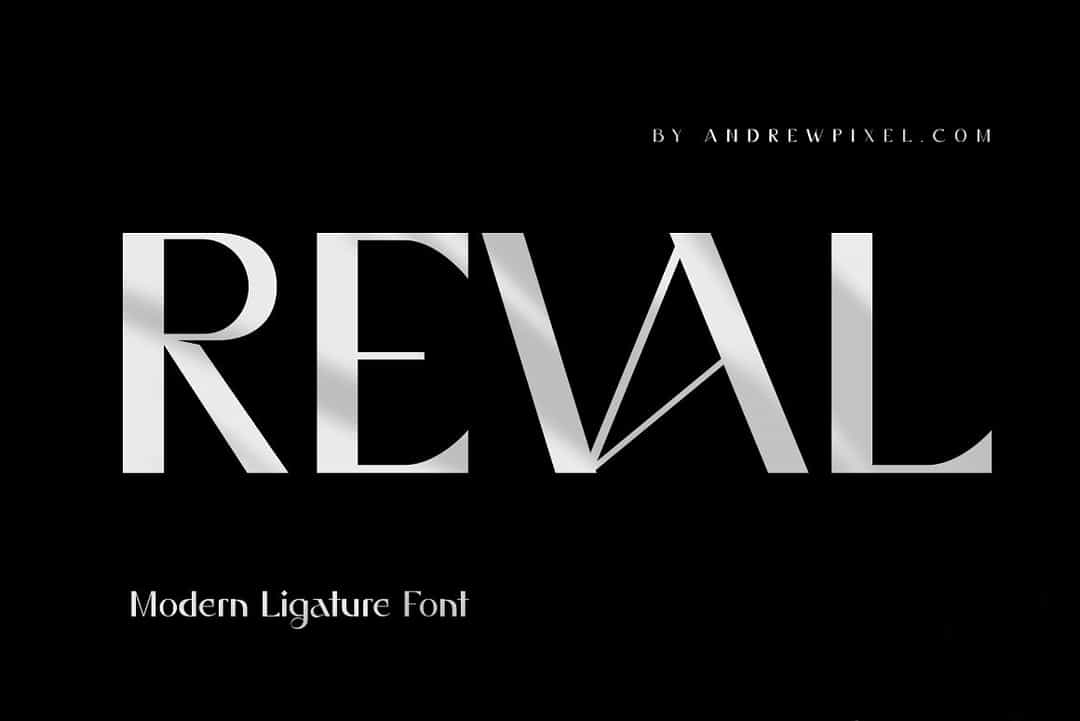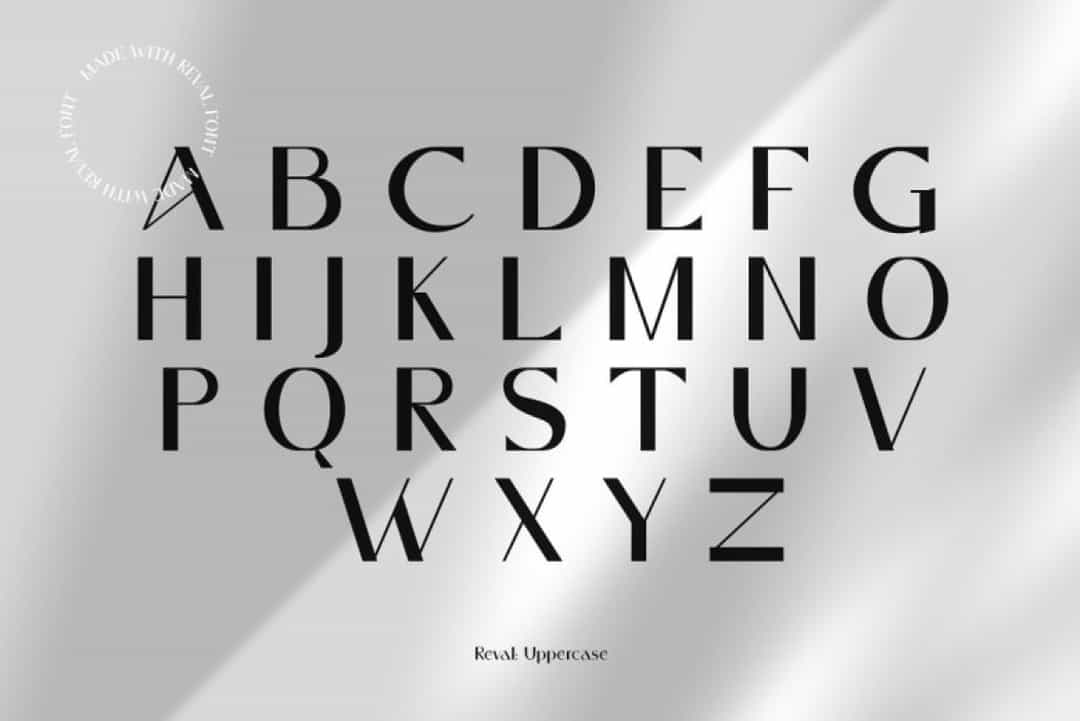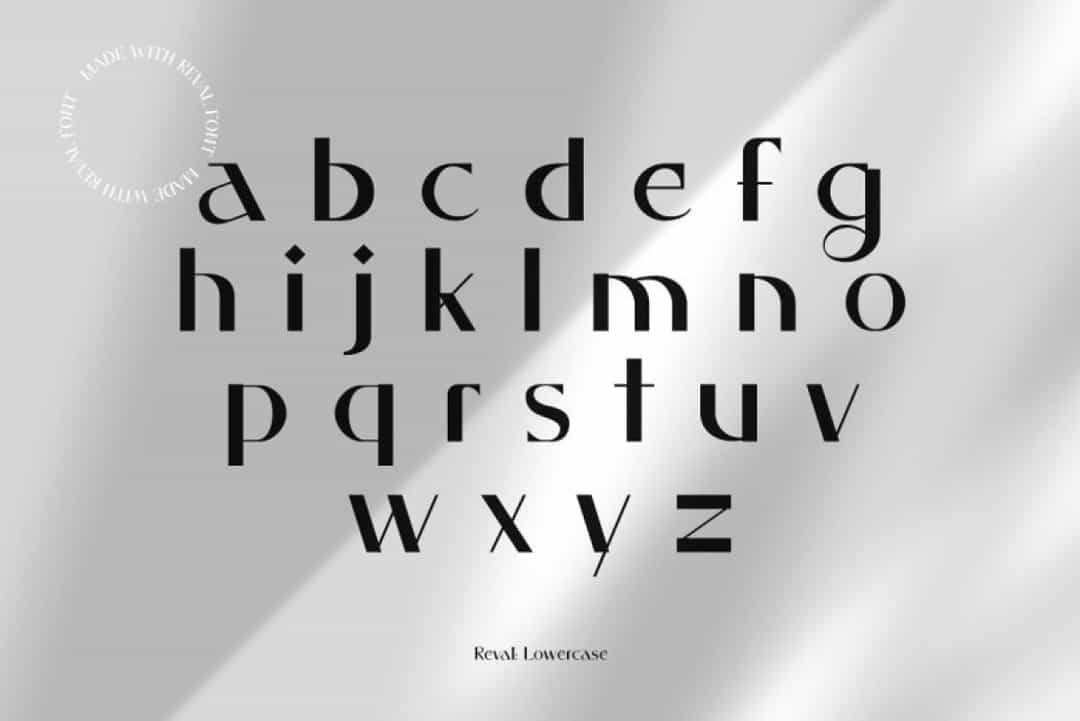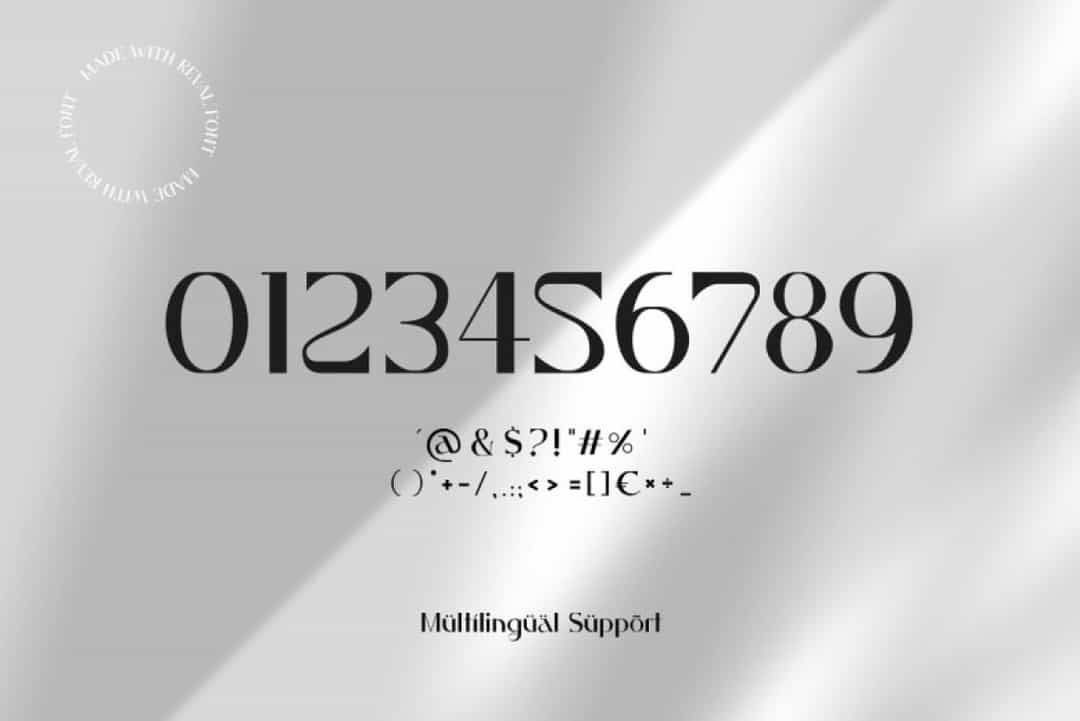
Reval is an elegant and sophisticated ligature show font featuring sleek lines and luxurious impressions. Perfect for custom design work and packaging branding. Reval comes equipped with 34 standard ligatures to help create timeless solutions.